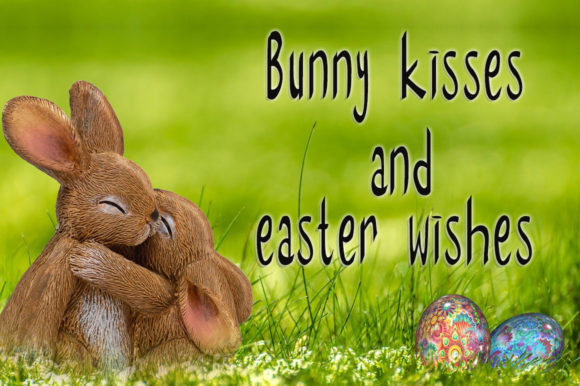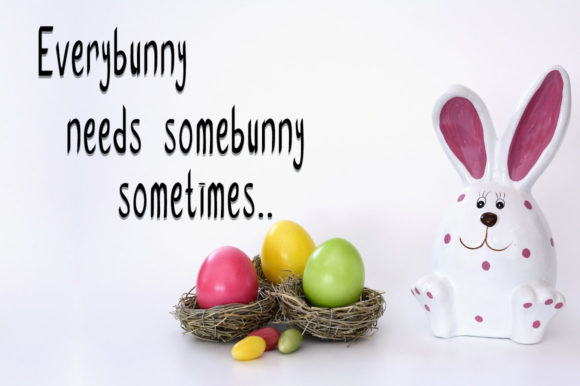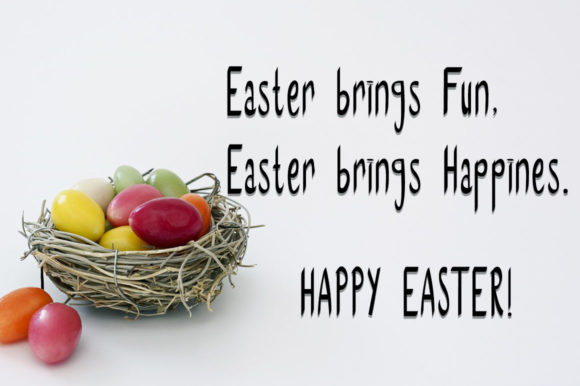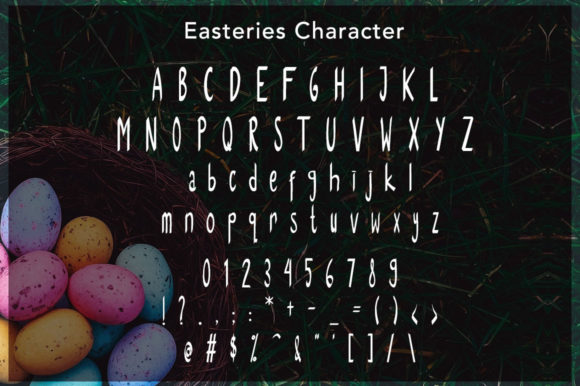
Easteries Font: Elevate Your Creative Projects with a Modern Twist
In the world of typography, fonts play a crucial role in conveying messages, evoking emotions, and adding personality to creative projects. For designers, crafters, and social media enthusiasts, finding the perfect font can make all the difference. Introducing Easteries, a new modern and casual display font that’s taking the design community by storm. In this article, we’ll dive into the world of Easteries, exploring its features, benefits, and uses, and why it’s a must-have for anyone looking to elevate their creative projects.
The Birth of Easteries
Easteries is a fresh and innovative font designed to make a statement. Its creators aimed to craft a font that’s both modern and approachable, perfect for a wide range of applications. Whether you’re a designer looking for a unique font for your next project or a crafter seeking inspiration for your DIY endeavors, Easteries is sure to impress. With its clean lines, subtle curves, and friendly vibe, this font is poised to become a favorite among creative enthusiasts.
What Makes Easteries Special?
So, what sets Easteries apart from other fonts? Here are a few key features that make it stand out:
- Modern and Casual: Easteries boasts a fresh, contemporary look that’s perfect for designs that require a touch of sophistication and playfulness.
- Display Font: Designed specifically for display purposes, Easteries is ideal for headlines, titles, and short texts that need to make an impact.
- Versatile: This font is incredibly versatile, suitable for various projects, from social media graphics and posters to logos, branding, and packaging.
- Easy to Read: Despite its modern and stylized appearance, Easteries remains highly legible, ensuring your message is conveyed clearly and effectively.
Perfect for Instagram and Social Media
In today’s digital age, social media platforms like Instagram have become essential channels for creative expression. Easteries font is perfectly suited for Instagram and other social media platforms, allowing you to create eye-catching posts, stories, and captions that stand out from the crowd. Its modern and casual vibe makes it an excellent choice for:
- Instagram Posts and Stories: Elevate your feed with stylish and engaging text overlays.
- Facebook and Twitter: Use Easteries to create attention-grabbing headlines and posts that spark conversations.
- YouTube and Video Content: Add a professional touch to your video titles, intros, and outros with this sleek font.
DIY Projects and Crafting
Crafters and DIY enthusiasts will love Easteries for its ability to add a personal touch to handmade projects. Use this font to:
- Customize Party Invitations: Create unique and festive invitations for special occasions.
- Design DIY Crafts: Add a modern twist to your handmade crafts, such as signs, cards, and gift tags.
- Personalize Home Decor: Use Easteries to create custom wall art, banners, and decorative items for your home.
Tips for Using Easteries
To get the most out of Easteries, here are some tips to keep in mind:
- Experiment with Colors: Pair Easteries with bold and bright colors to create visually striking designs.
- Play with Sizes: Use Easteries in various sizes to create visual hierarchy and emphasize key messages.
- Combine with Other Fonts: Mix Easteries with complementary fonts to add depth and interest to your designs.
Easteries font is a game-changer for designers, crafters, and social media enthusiasts looking to elevate their creative projects. Its modern, casual, and versatile design makes it perfect for a wide range of applications, from Instagram and social media to DIY projects and crafting. With Easteries, you can turn any creative idea into a true piece of art. So why wait? Discover the power of Easteries and take your designs to the next level!